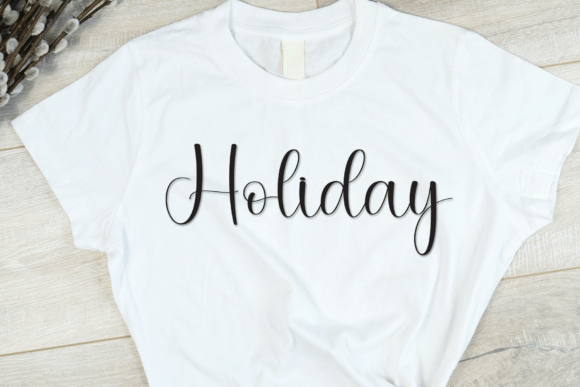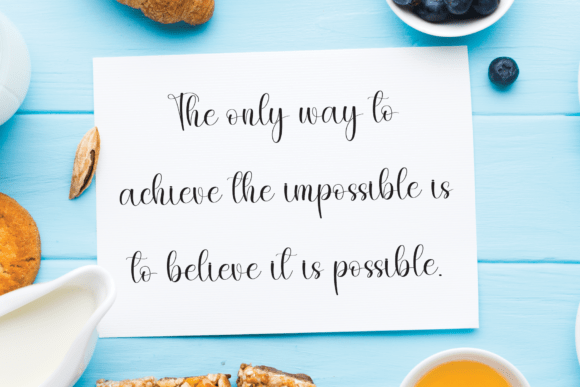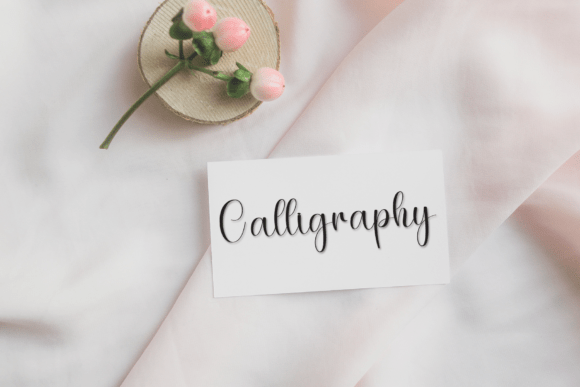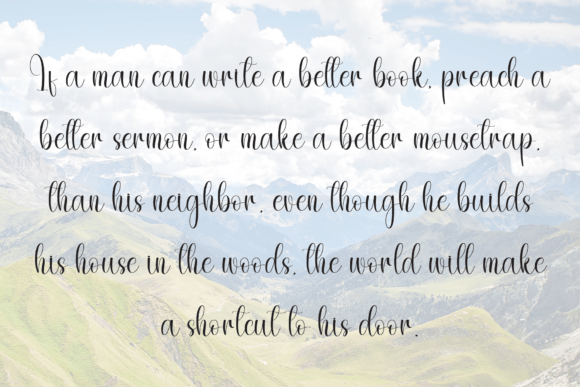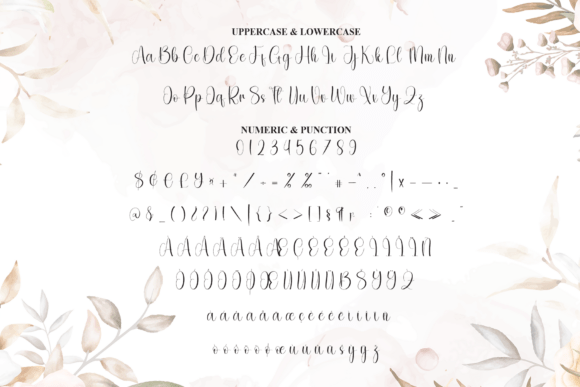
Discover the Elegance of Amelia Font: A Stylish Script Font for Modern Designers
In the world of typography, few fonts manage to capture the essence of elegance and contemporary charm as effectively as Amelia Font. This stylish script font has been gaining popularity among designers and crafters for its unique blend of traditional calligraphy and modern sophistication. Whether you’re working on a logo, invitation, packaging, or social media graphics, Amelia Font is an excellent choice to add a refined and polished touch to your designs.
The Characteristics of Amelia Font
Amelia Font is distinguished by its graceful strokes, fluid curves, and meticulously crafted letterforms. Each character is designed to flow seamlessly into the next, creating a natural and harmonious visual experience. The font’s fluidity and smooth connections evoke the beauty of hand-drawn calligraphy, while its modern twist ensures it remains fresh and relevant.
One of the standout features of Amelia Font is its carefully considered letterforms. Each letter is crafted with precision and attention to detail, ensuring that the font is not only aesthetically pleasing but also highly legible. This makes it an excellent choice for a wide range of design applications, from high-end branding to more creative and artistic projects.
Applications of Amelia Font
Amelia Font’s versatility is one of its most compelling attributes. Its elegant and sophisticated design makes it suitable for a variety of projects, including:
- Logos: Create a lasting impression with a logo that exudes refinement and style. Amelia Font’s unique character ensures your brand stands out from the competition.
- Invitations: Add a touch of luxury to your invitations, whether it’s for a wedding, corporate event, or social gathering. The font’s elegant appearance sets the tone for a sophisticated and memorable occasion.
- Packaging: Elevate your product packaging with Amelia Font, adding a level of sophistication that can help your product stand out on store shelves.
- Social Media Graphics: Enhance your social media presence with graphics that reflect a refined and contemporary aesthetic. Amelia Font is perfect for creating engaging and stylish content.
Why Choose Amelia Font?
For designers and crafters looking for a font that combines elegance with versatility, Amelia Font is an excellent choice. Here are a few reasons why:
- Unique Design: Amelia Font offers a distinctive look that sets it apart from more traditional script fonts. Its modern twist on classic calligraphy makes it a valuable addition to any designer’s toolkit.
- High Legibility: Despite its elegant and cursive nature, Amelia Font remains highly legible, making it suitable for both headlines and body text.
- Easy to Use: Amelia Font is designed to be user-friendly, allowing designers to incorporate it seamlessly into their projects without requiring extensive typographic expertise.
Tips for Using Amelia Font Effectively
To get the most out of Amelia Font, consider the following tips:
- Pair with Complementary Fonts: Amelia Font pairs well with clean sans-serif fonts for body text or serif fonts for a more traditional look. Experiment with different combinations to find the perfect balance for your design.
- Adjust Letter Spacing: For optimal readability, adjust the letter spacing according to the size and application of the font. This ensures that the text remains clear and visually appealing.
- Use it Sparingly: While Amelia Font is elegant and sophisticated, using it sparingly can have a greater impact. Consider using it for headlines or key messages to draw attention and add emphasis.
Amelia Font is a stylish script font that brings a touch of elegance and contemporary charm to any design. Its graceful strokes, fluid curves, and carefully crafted letterforms make it an excellent choice for designers and crafters looking to add sophistication and refinement to their projects. Whether you’re working on a logo, invitation, packaging, or social media graphics, Amelia Font delivers both versatility and visual appeal. By incorporating Amelia Font into your design toolkit, you’ll be able to create stunning and memorable designs that stand out in a crowded digital landscape.